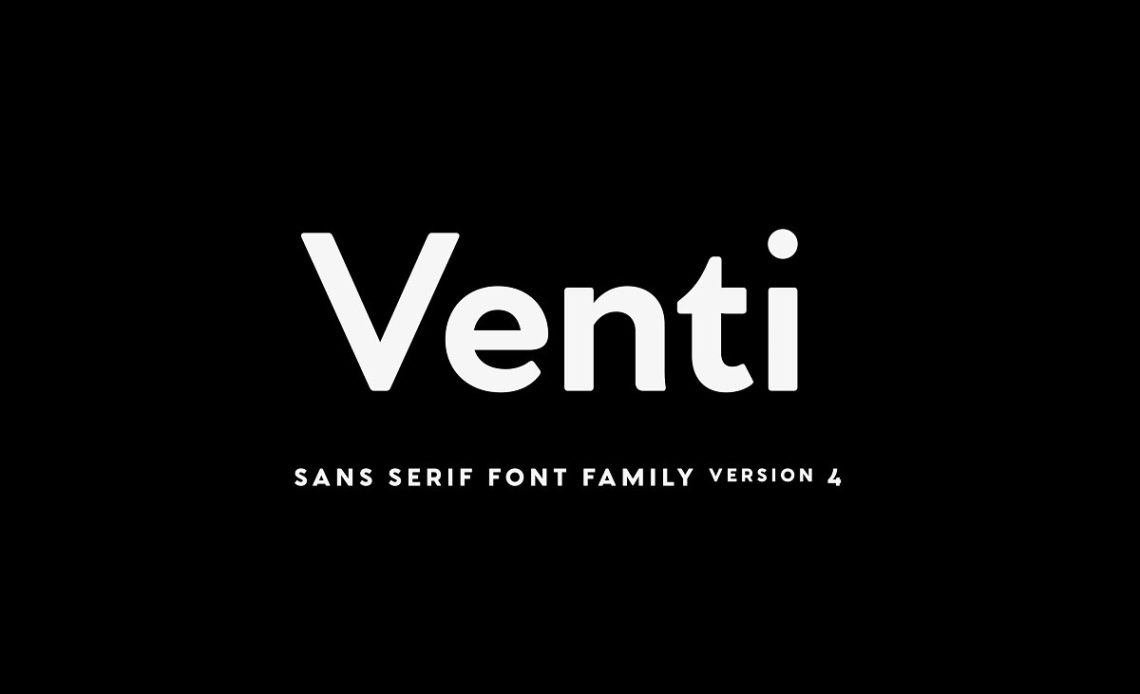
Introducing Venti CF, a geometric sans-serif font family that will add a warm and inviting character to your designs. Created by designer Connary Fagen, this font family is perfect for headlines, quotes, and short text. Venti CF's subtle imperfections and human tone create a unique and engaging feel that stands out from other geometric fonts.
Venti CF has recently undergone a major update to version 4, which brings a host of refinements and improvements to the classic typeface. With eight weights and obliques, Latin and Cyrillic scripts, and OpenType features such as ligatures, old-style and tabular numerals, and fractions, this font family has everything you need to create eye-catching and professional designs.